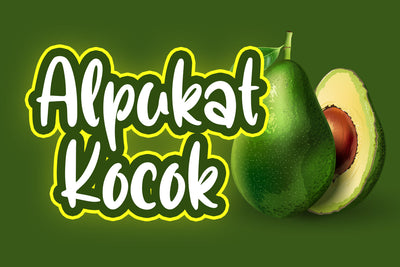
Alpukat
introducing
ALPUKAT KOCOK
- quirky craft font -
ALPUKAT KOCOK is natural handwritten font.
It is great for branding, packaging, quotes, cutting, silhouette, social media content, and anything of craft project.
I created some doodles to make this font complete.
- Number & punctuations
- Multilingual
- Doodles